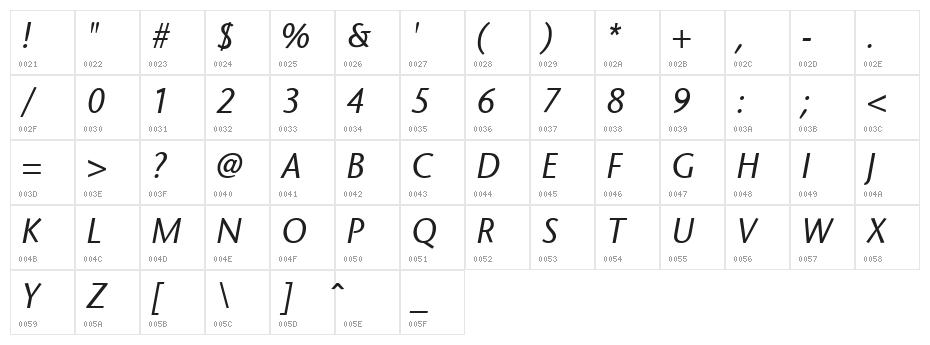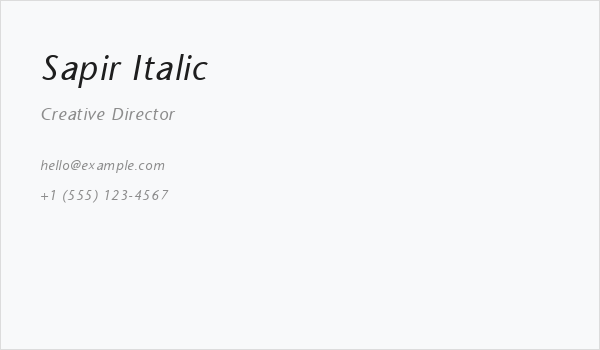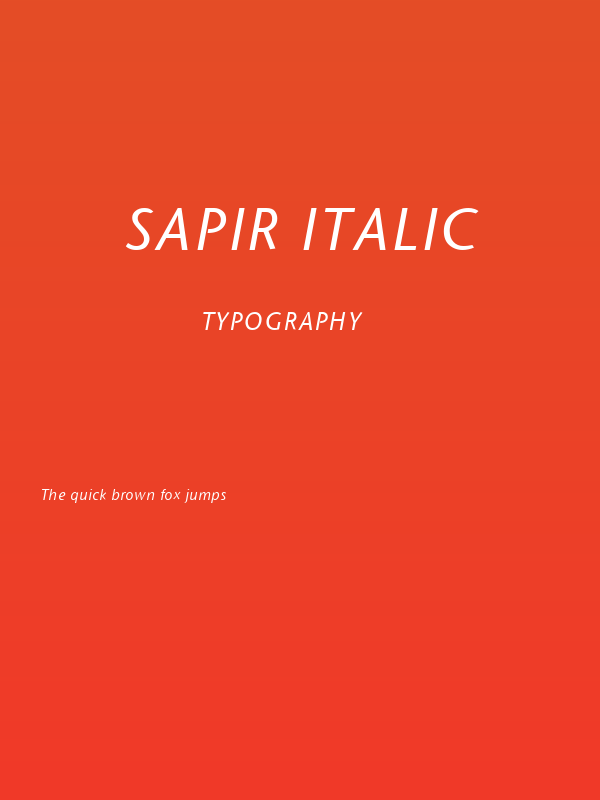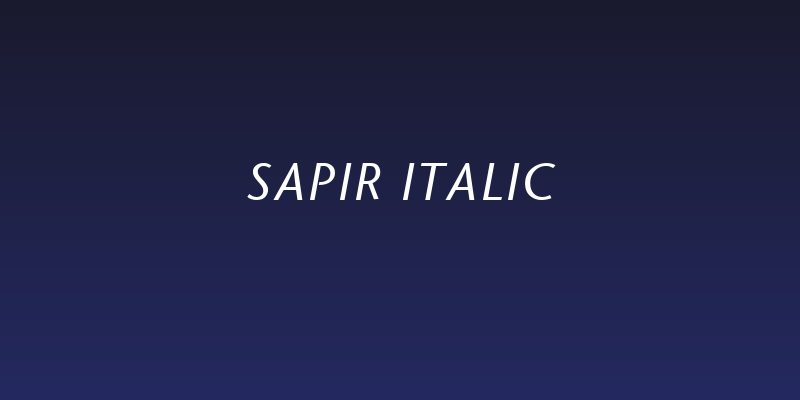
Sapir Italic Font
Sapir Italic Description
This font features a sleek and modern italic style, characterized by its clean lines and smooth curves. The letters are slightly slanted, giving a dynamic and elegant appearance. The uppercase letters are tall and commanding, while the lowercase letters maintain a consistent flow, enhancing readability. The numerals are clear and distinct, matching the overall aesthetic of the alphabet. Special characters are well-integrated, maintaining the font's cohesive look. The font's design is versatile, suitable for both digital and print media, offering a professional yet approachable feel.
| Proposed Projects | Ideal for branding, editorial design, advertising, and web design projects. |